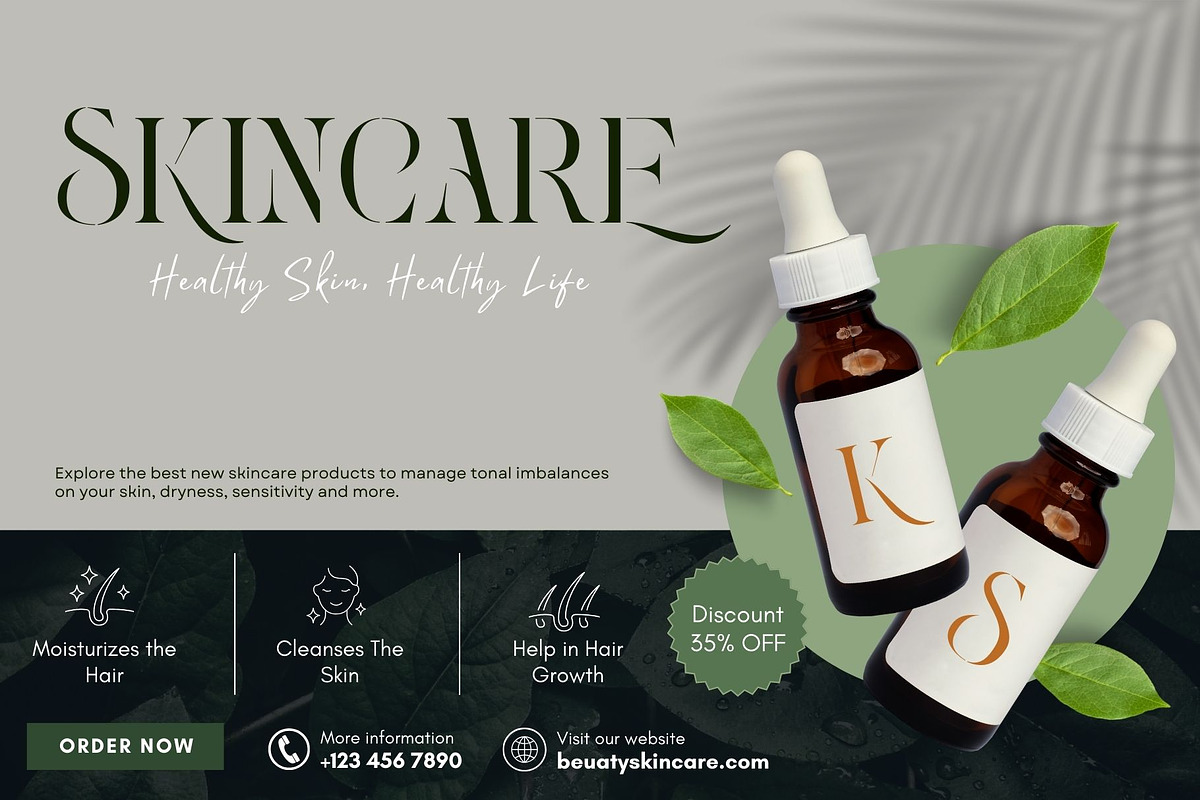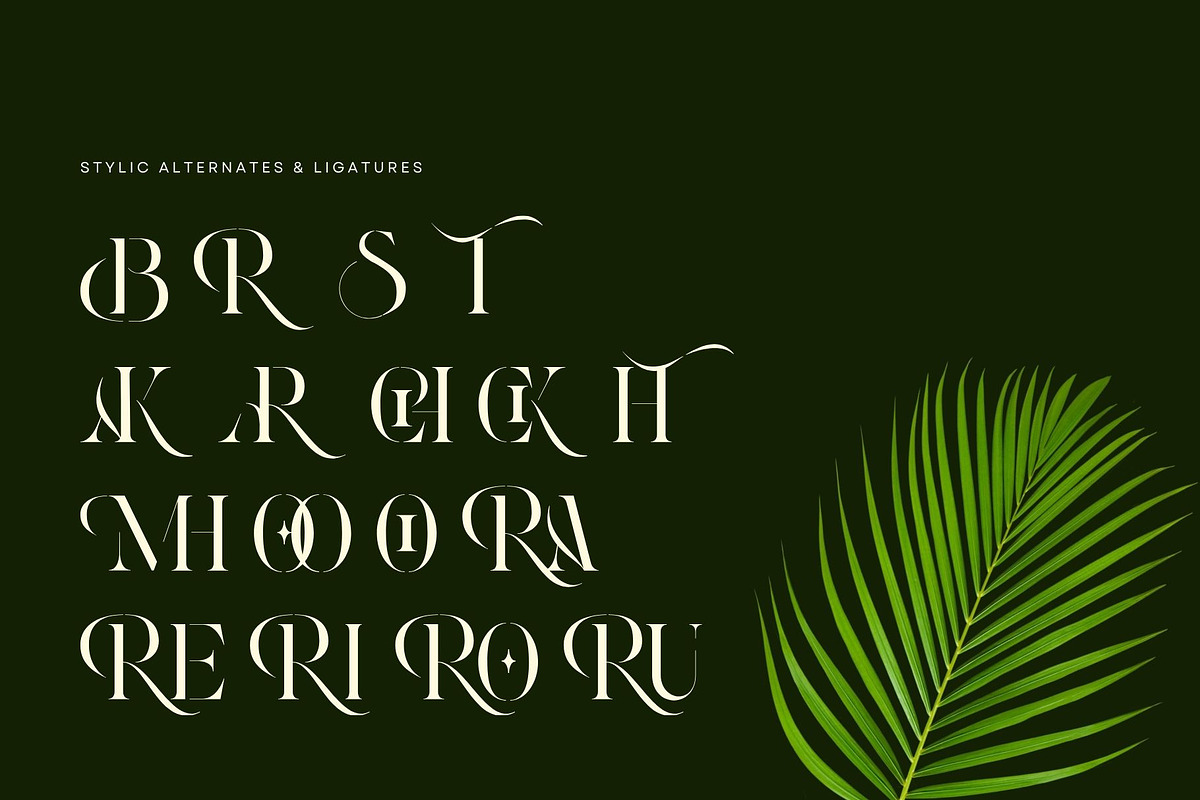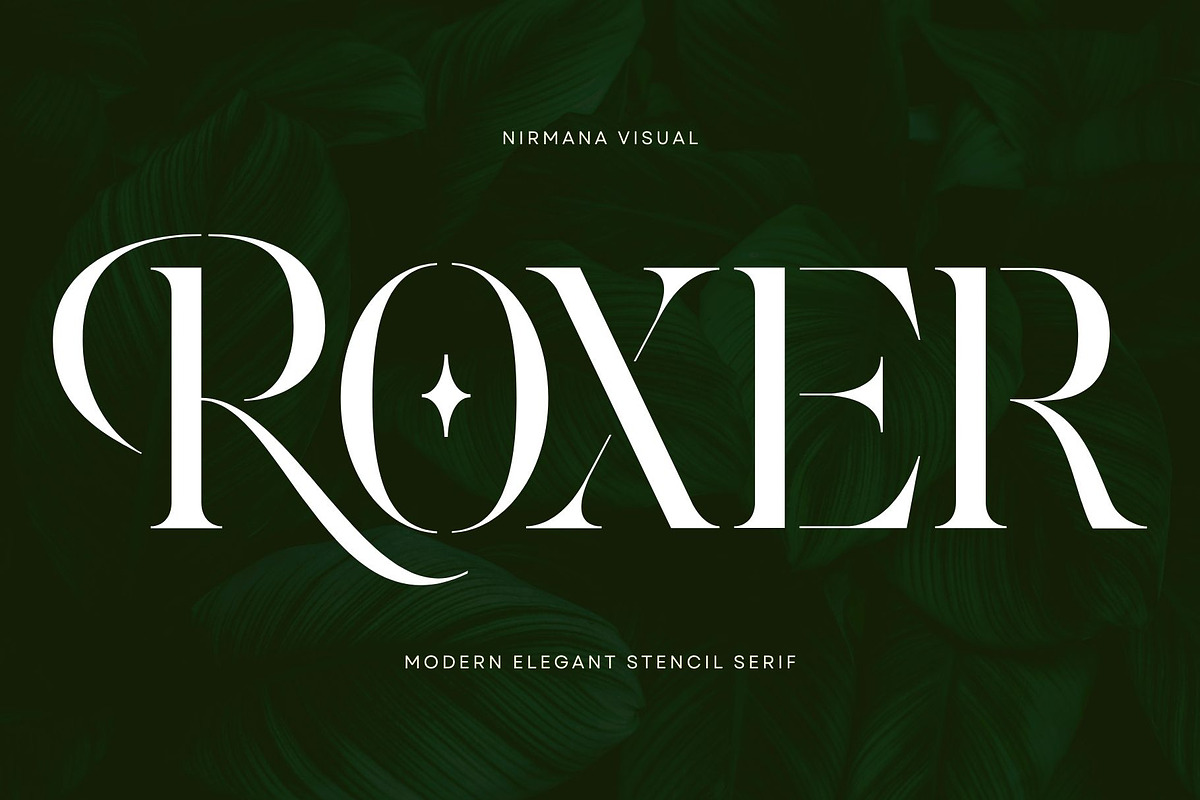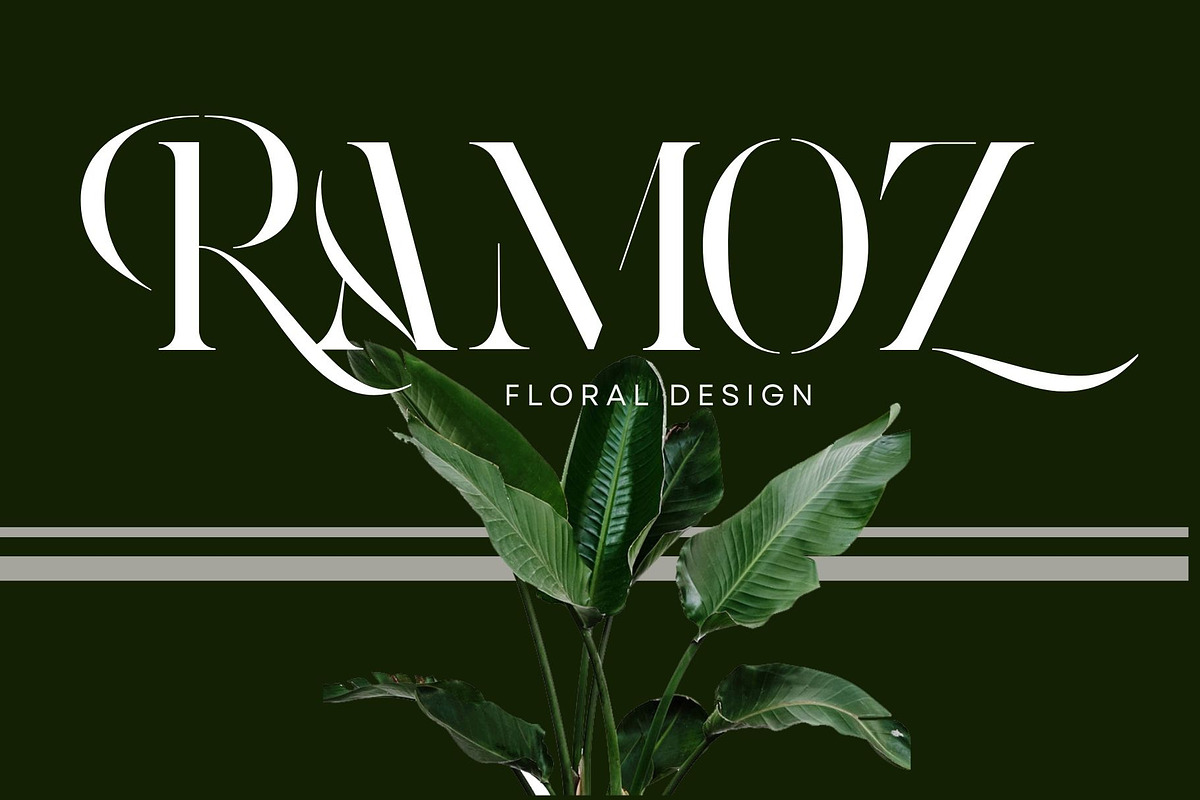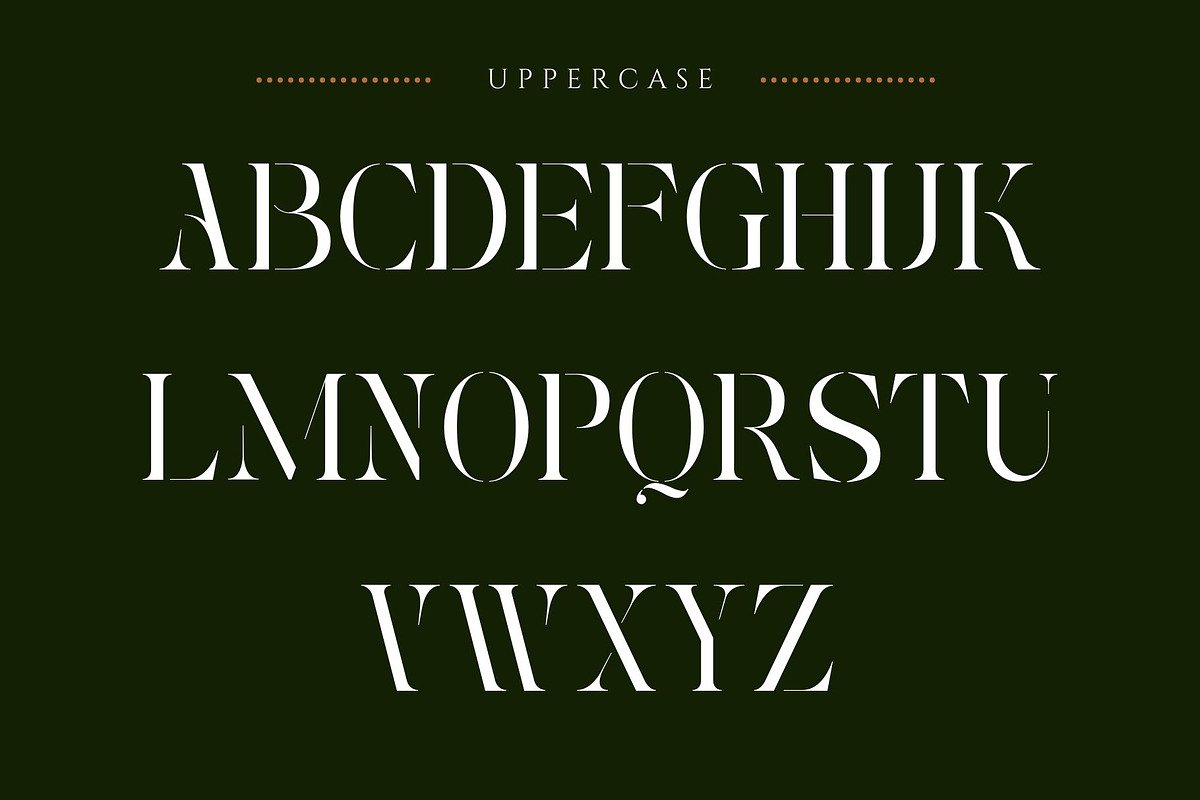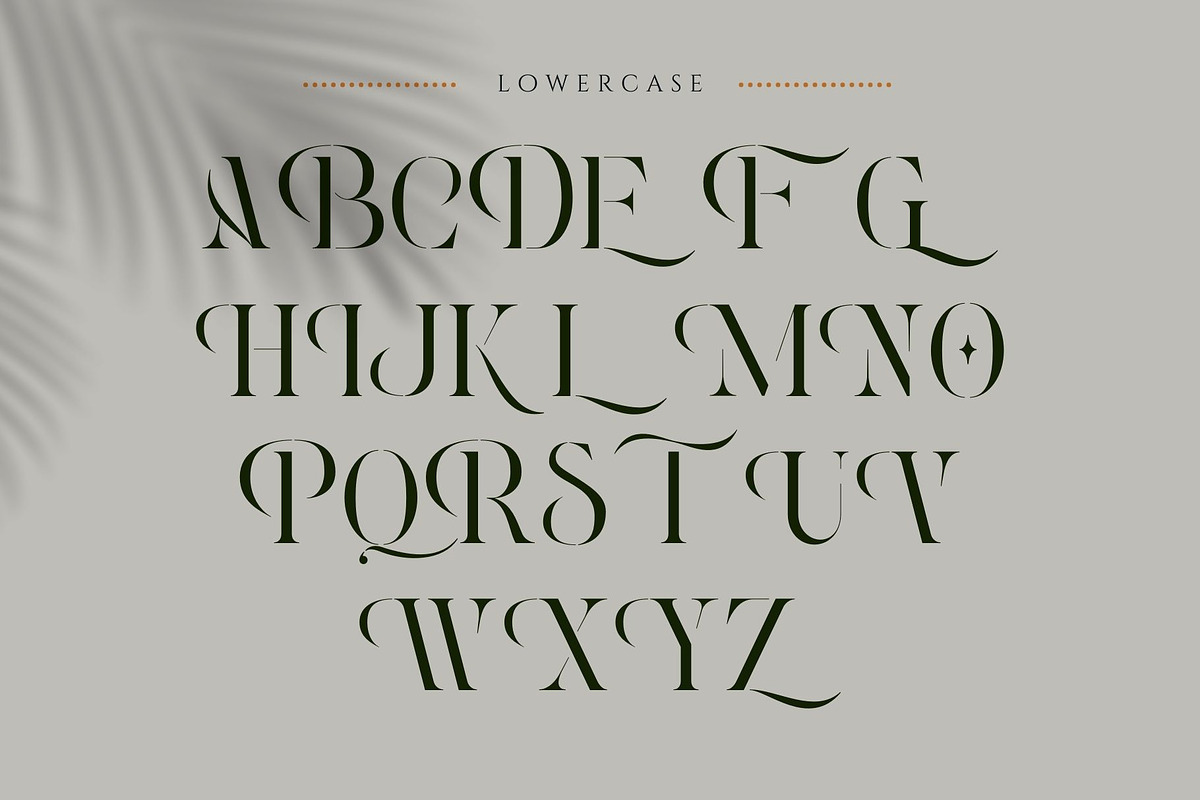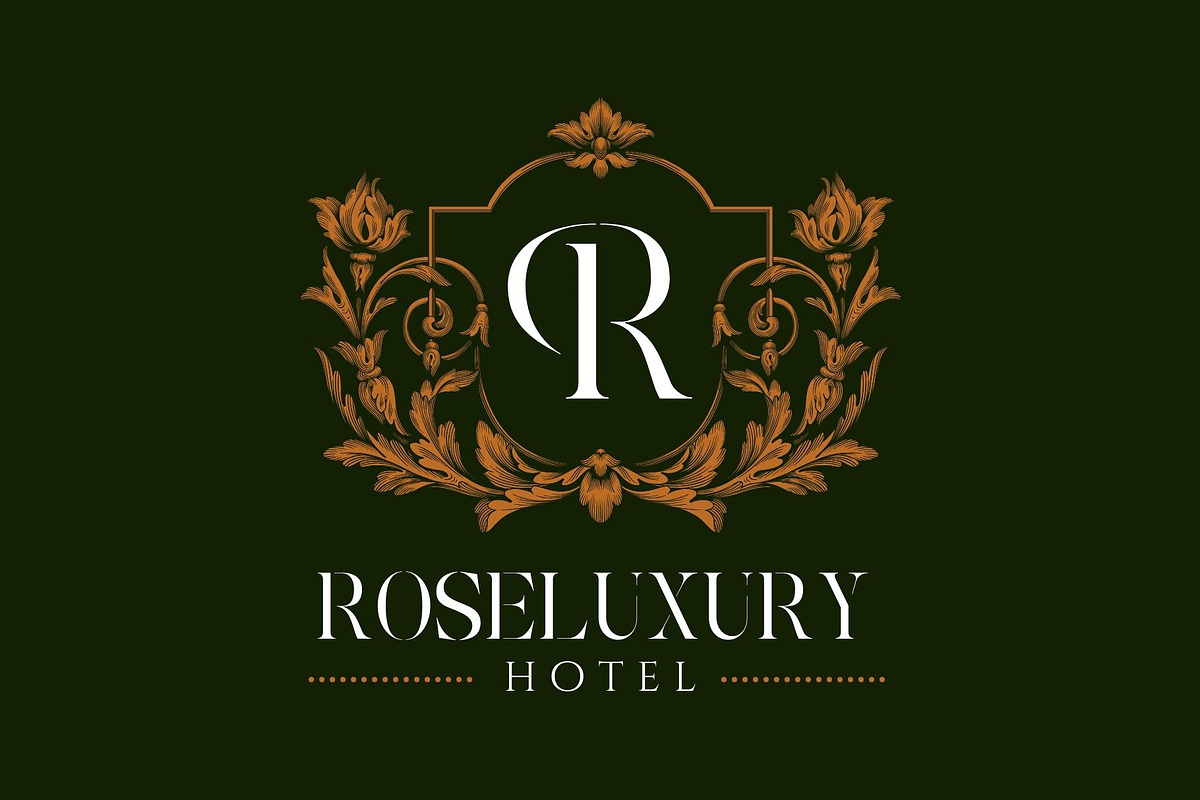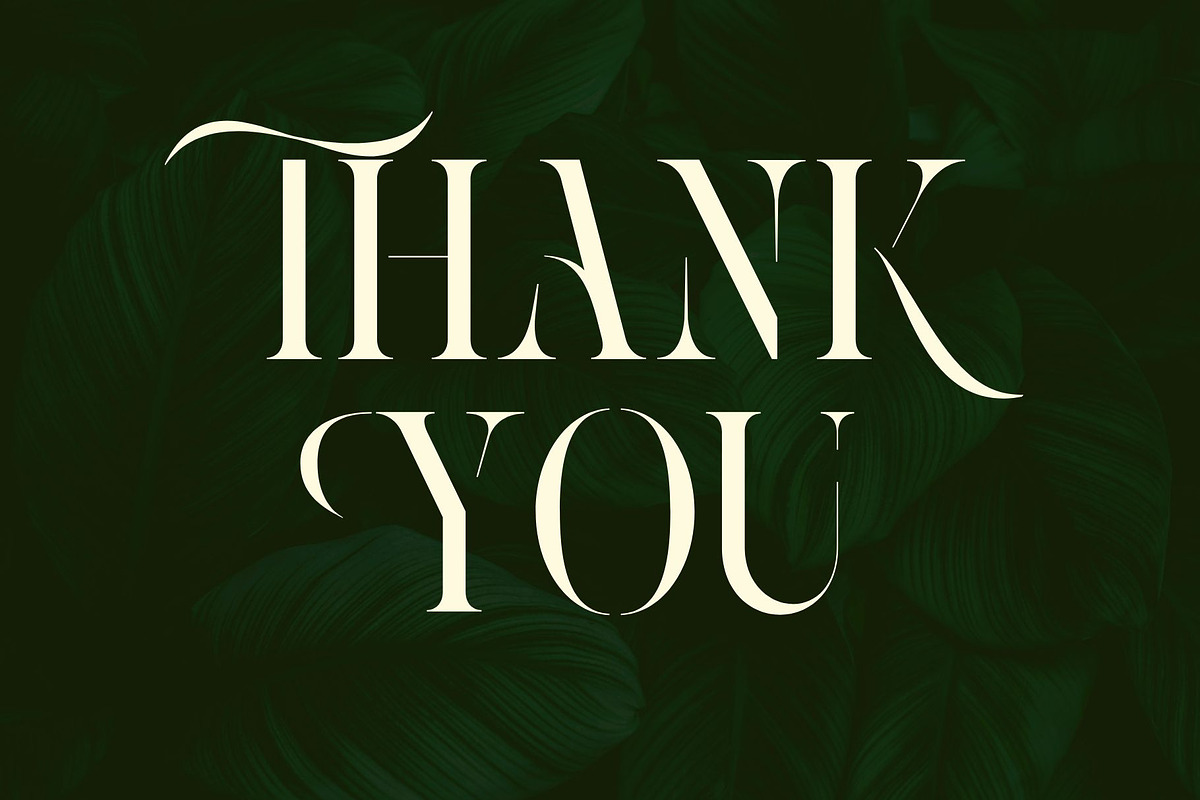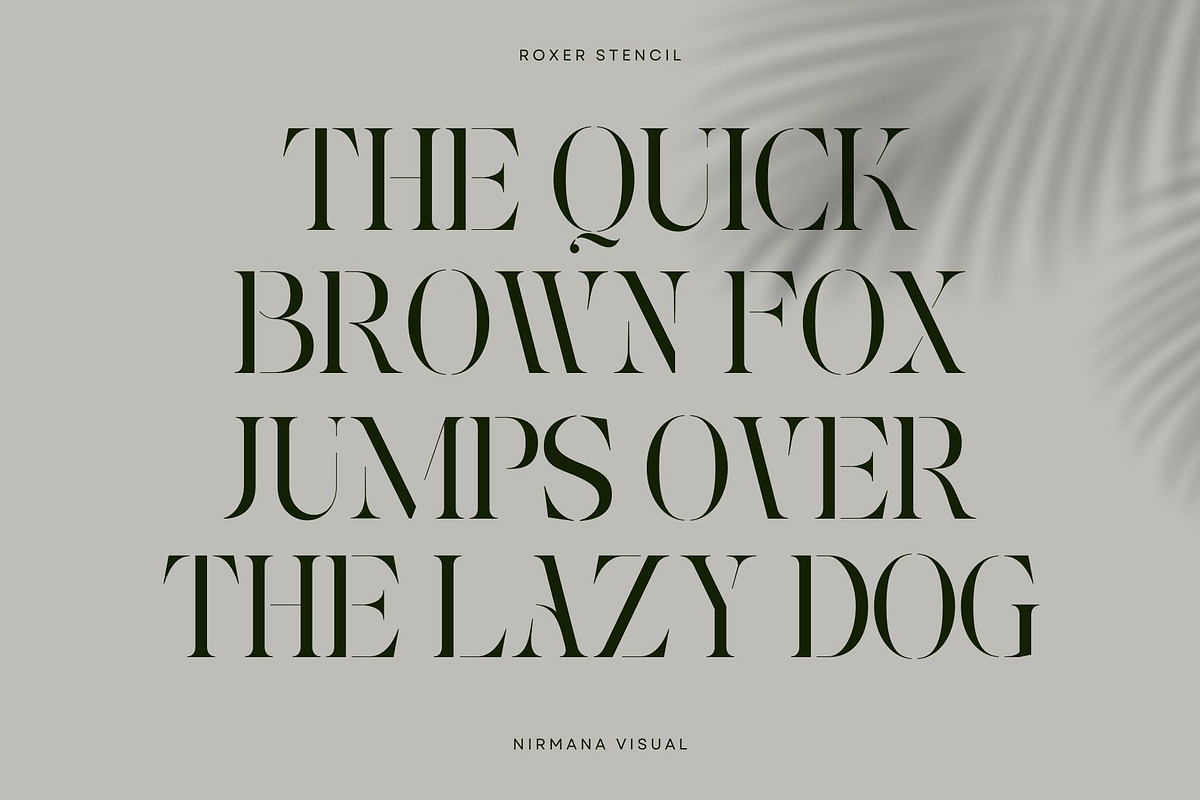
Roxer Stencil - Modern Serif Font
Roxer Stencil - Modern Ligature Font
Roxer Stencil offers beautiful typographic harmony for a diversity of design projects, including logos & branding, social media posts, advertisements & product designs.